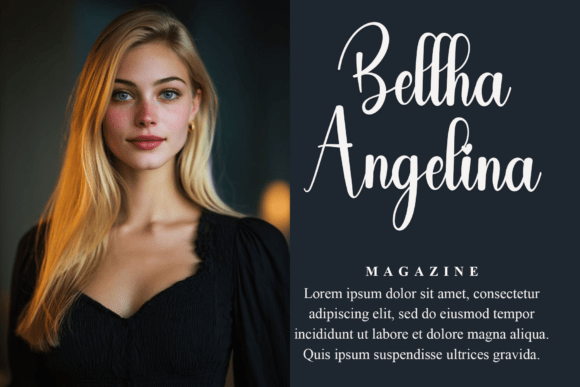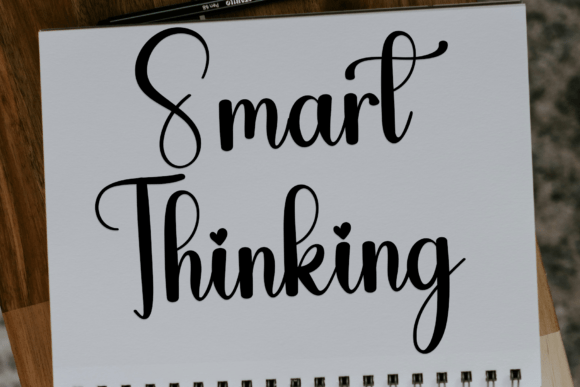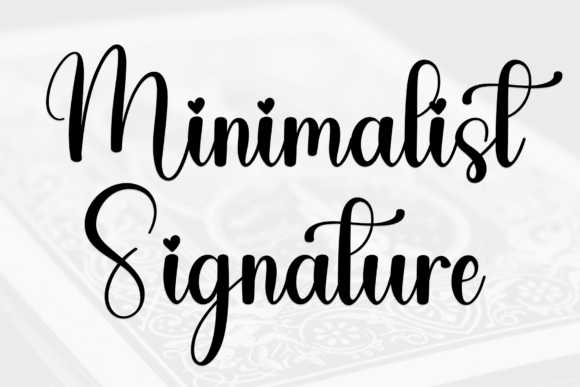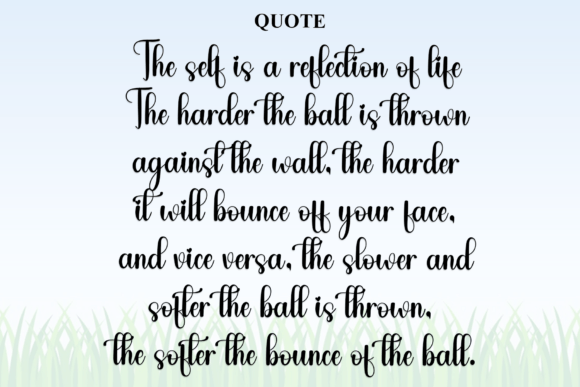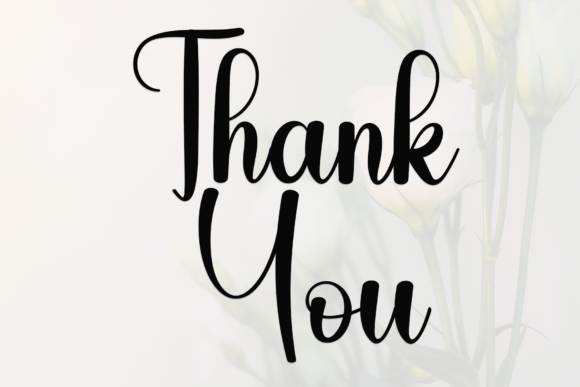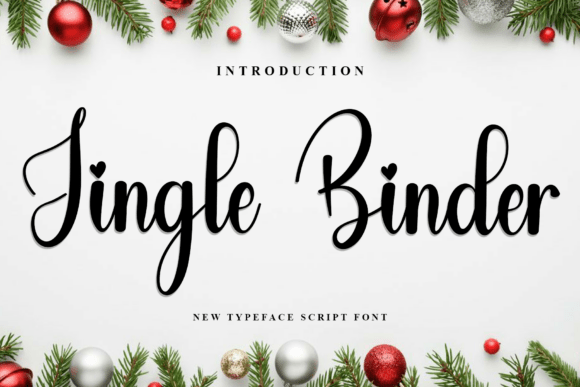
A Touch of Elegance for the Holiday Season
As the snowflakes gently fall and the fireplace crackles to life, there’s something magical about the holiday season that sparks our creativity. It’s the time to get cozy, be festive, and add a touch of elegance to our designs. For many of us, this means searching for the perfect font to capture the essence of the season. That’s where the Jingle Binder Font comes in – a luxurious holiday typeface that combines the elegance of calligraphy with the festive cheer of Christmas.
This exquisite script font is designed to elevate your holiday communications, from high-end Christmas party invitations to personalized cards and luxury gift branding. With its delicate, sweeping connections and variable thickness, the Jingle Binder Font adds a sophisticated, feminine touch to any design. Whether you’re a seasoned designer or a creative enthusiast, this font is a valuable addition to your toolkit, allowing you to bring a touch of classic elegance to your winter and holiday-themed designs.
Jingle Binder Font Key Features
• Font Family: Jingle Binder Font is a unique, hand-drawn font designed to evoke a sense of nostalgia and playfulness.
• Unique Characteristics: Features a distinctive, cursive script with decorative flourishes, making it perfect for adding a touch of whimsy to designs.
Designer Review: Jingle Binder Font
First off, I want to say that I’m impressed with the whimsical feel ✨ of the Jingle Binder Font. It’s perfect for festive or holiday-themed designs, and the font’s unique style adds a playful touch. The font’s legibility is also noteworthy, making it easy to read even in smaller sizes.
However, I do have some reservations about the limited character set ⚠️. The font is primarily designed for display purposes, and it lacks the depth and complexity of more comprehensive fonts. This might be a problem for designers who need to use the font for extended periods or in complex layouts.
In terms of versatility ✨, the Jingle Binder Font performs well in digital applications, but its print performance could be improved. The font’s design may not translate well to certain paper stocks or printing conditions, which could affect its overall appearance.
• Unique, whimsical design
• Good legibility in display sizes
• Well-suited for digital applications
• Limited character set
• Potential issues with print performance
• May not be suitable for extended use or complex layouts
Overall, I’d say the Jingle Binder Font is a great choice for designers who need a fun, eye-catching font for short-term projects or digital applications. However, it may not be the best fit for more complex designs or long-term projects.
The Jingle Binder Font is ideal for use in:
• Wedding invitations and stationery
• Party decorations and signage
• Children’s party invitations and decorations
• Any design project that requires a playful and festive font.